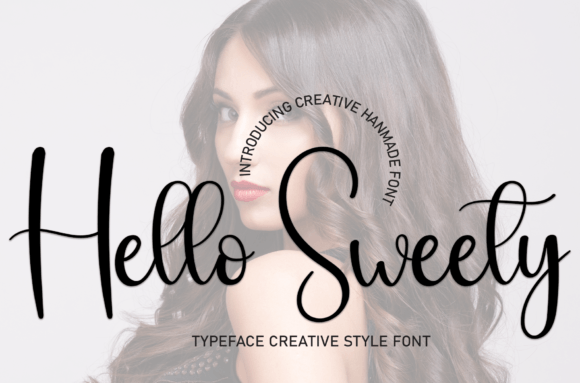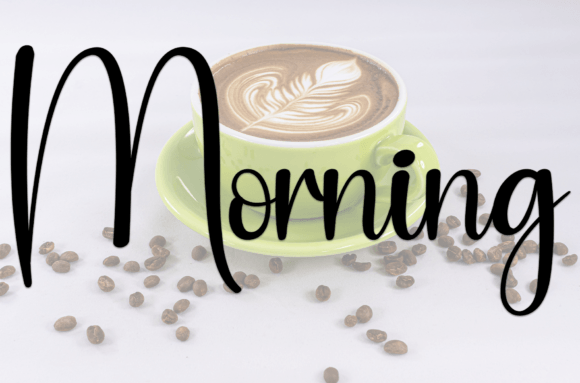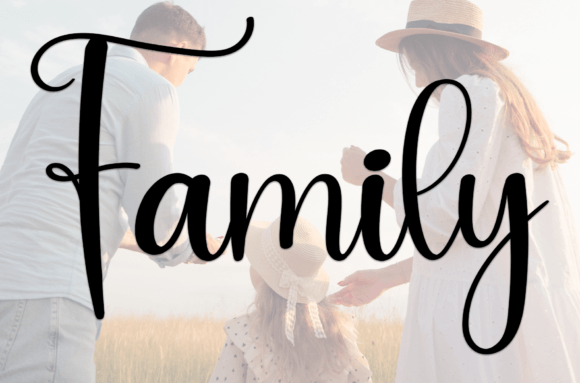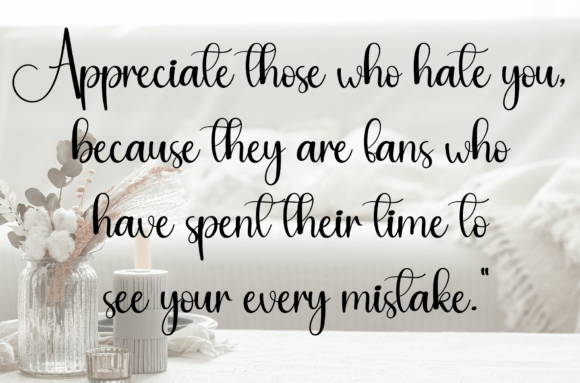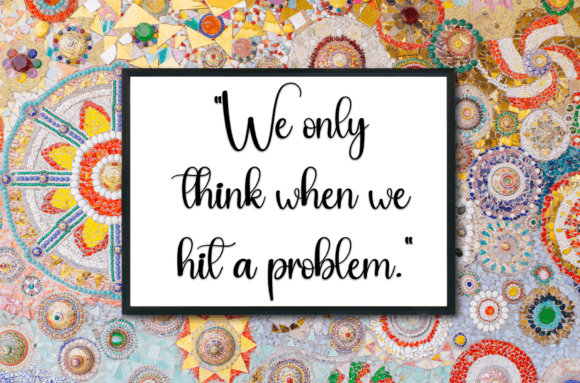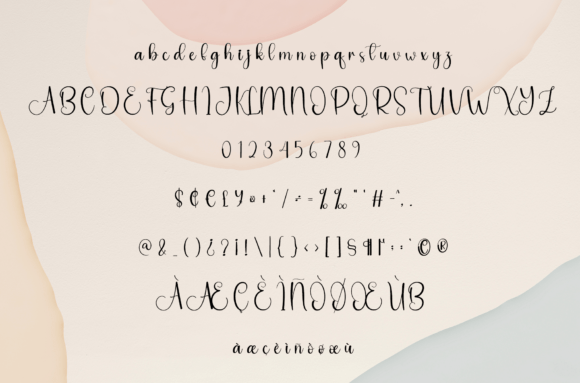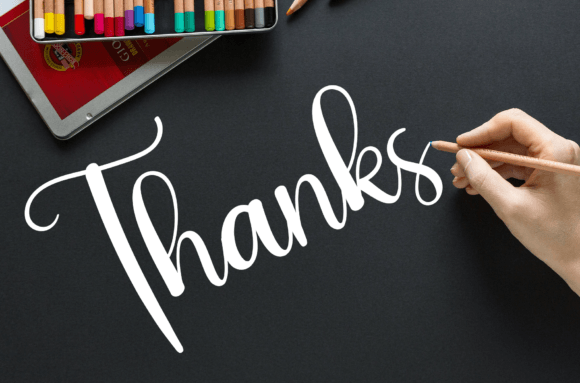
Hello Sweety Font
What Is Hello Sweety Font?
Hello Sweety is a sweet and friendly handwritten font designed to make your creative ideas shine. With its playful curves and clean strokes, this font feels warm, personal, and approachable. Because it was carefully crafted, Hello Sweety brings a joyful look to any project.
You’ll love how easily it transforms simple text into eye-catching designs.
Hello Sweety is extremely versatile, making it perfect for many different uses. For example, it looks beautiful on wedding invitations. Whether your style is classic or modern, this font adds a soft, romantic touch that feels special.
It also works perfectly for greeting cards. If you want your message to feel heartfelt and genuine, Hello Sweety helps you say it with style.
Additionally, this font is ideal for social media graphics. Whether you are posting quotes, announcing a sale, or promoting an event, its friendly look helps your posts stand out.
Hello Sweety is also great for product packaging and labels. Its cute and approachable style helps any product feel more unique and inviting. From crafts and small business branding to digital templates, this font adapts beautifully to every project.
Why Should You Choose Hello Sweety Font?
There are so many reasons to add Hello Sweety to your font collection. First, it stays clean and legible at any size. Whether you use it in large headings or smaller text, every letter looks smooth and balanced.
It pairs nicely with both serif and sans-serif fonts, so creating professional layouts is simple and quick.
Designers love how polished and playful it looks, saving time while producing beautiful results.
Hello Sweety brings energy, warmth, and personality to every project. For example, if you want your designs to feel friendly and fun, this font does the job effortlessly.
Even the most minimal layouts gain life and character thanks to its smooth curves and cute style. Whether you are making invitations, packaging, or social media posts, your work will feel cohesive and professional.
Using a quality handwritten font also shows attention to detail and helps you make a positive impression.
Hello Sweety is much more than just another font—it’s a creative tool that brings charm and joy to everything you design. From wedding invitations and cards to branding and digital graphics, this font adapts beautifully and elevates your work.